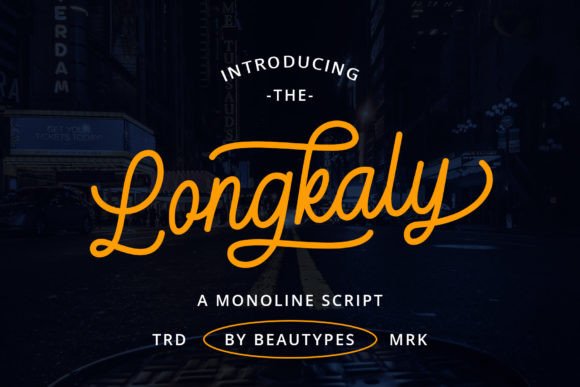
Unleash the Allure of Timeless Elegance with Longkaly Font: Where Vintage Charm Meets Modern Style
Embark on a captivating journey through the annals of vintage aesthetics with the Longkaly font, a monoline masterpiece that exudes an aura of timeless sophistication. Immerse yourself in the intricate details and sweeping curves of this exquisite script, meticulously crafted to evoke a sense of nostalgia and charm.
With Longkaly, your creative expressions will transcend the ordinary, transforming into exquisite works of art. Picture your designs adorned with the graceful strokes of this font, whether it's a captivating signature logo, a retro-inspired poster, or an enchanting t-shirt design. The possibilities are endless, inviting you to unlock your imagination and let your creativity soar.
Effortlessly Create Timeless Designs that Capture Hearts
With Longkaly at your fingertips, you'll discover a world of design opportunities, each one brimming with endless potential. Envision your brand's logo adorned with the elegant flourishes of this font, radiating an air of sophistication and heritage. Unleash your inner artist and craft striking posters that transport viewers to a bygone era of grace and charm.
The versatility of Longkaly extends beyond logos and posters, inviting you to explore its magic across a multitude of creative endeavors. Transform ordinary merchandise into captivating collector's items, each piece imbued with a unique vintage allure. Elevate your packaging designs with a touch of timeless elegance, making your products stand out from the crowd.
Harnessing the Power of Longkaly: A User-Friendly Experience
Unlock the Gateway to Vintage Elegance
With Longkaly by your side, you hold the key to unlocking a world of vintage charm and timeless sophistication. Its captivating aesthetics and user-friendly features make it the perfect choice for designers seeking to create truly exceptional designs. Don't let this opportunity pass you by. Embrace the allure of Longkaly and embark on a creative journey that will leave an unforgettable mark.